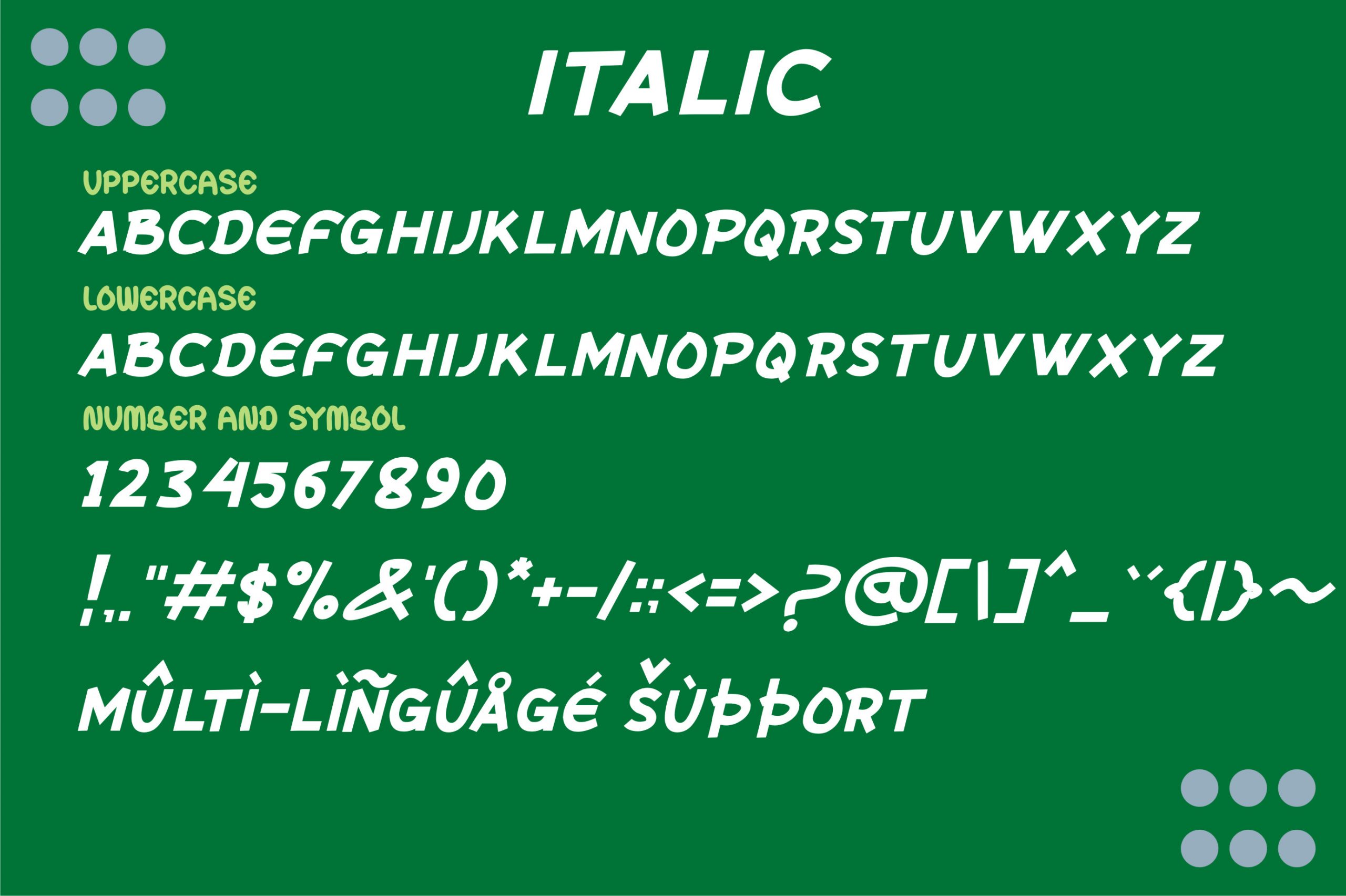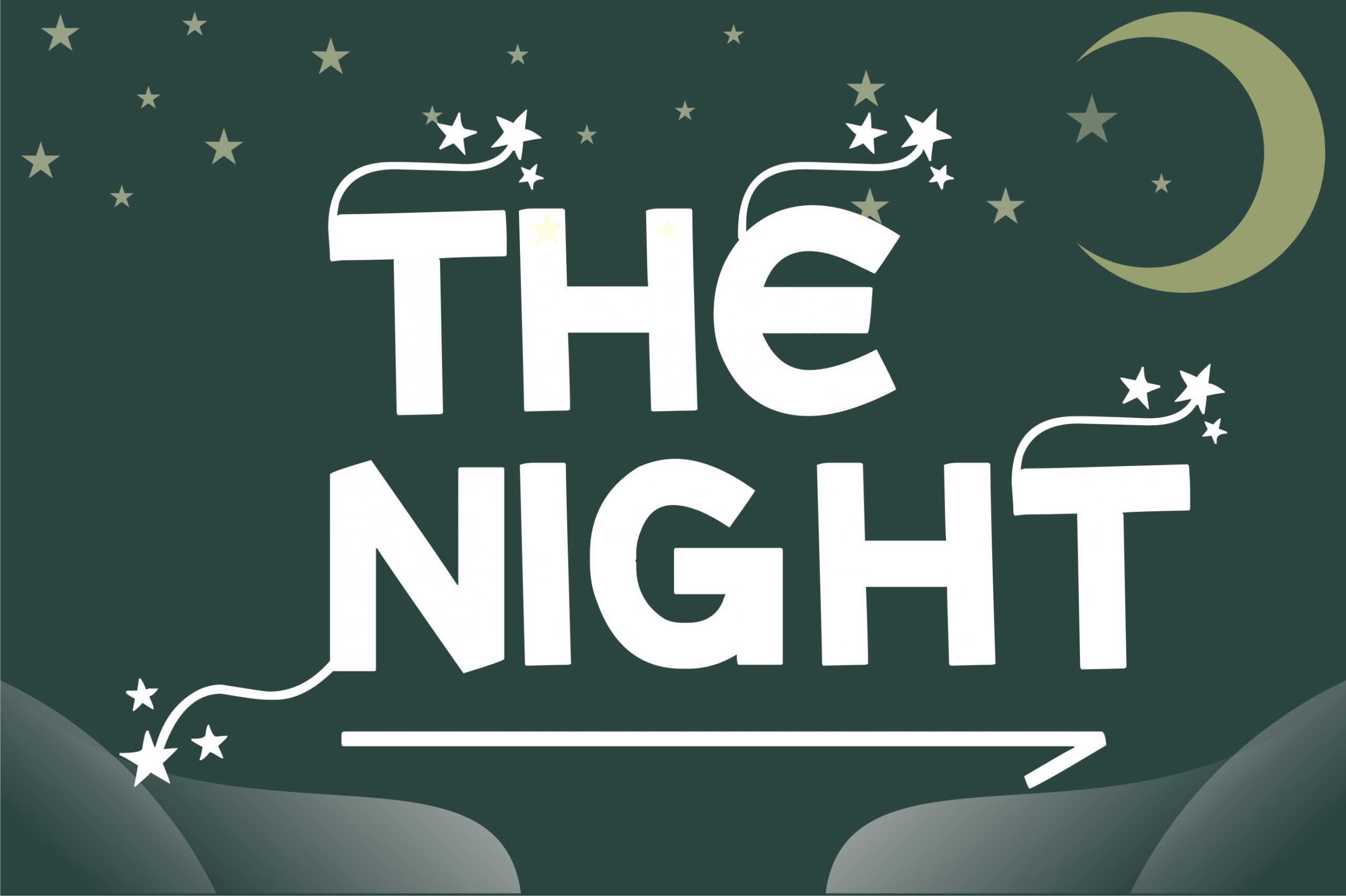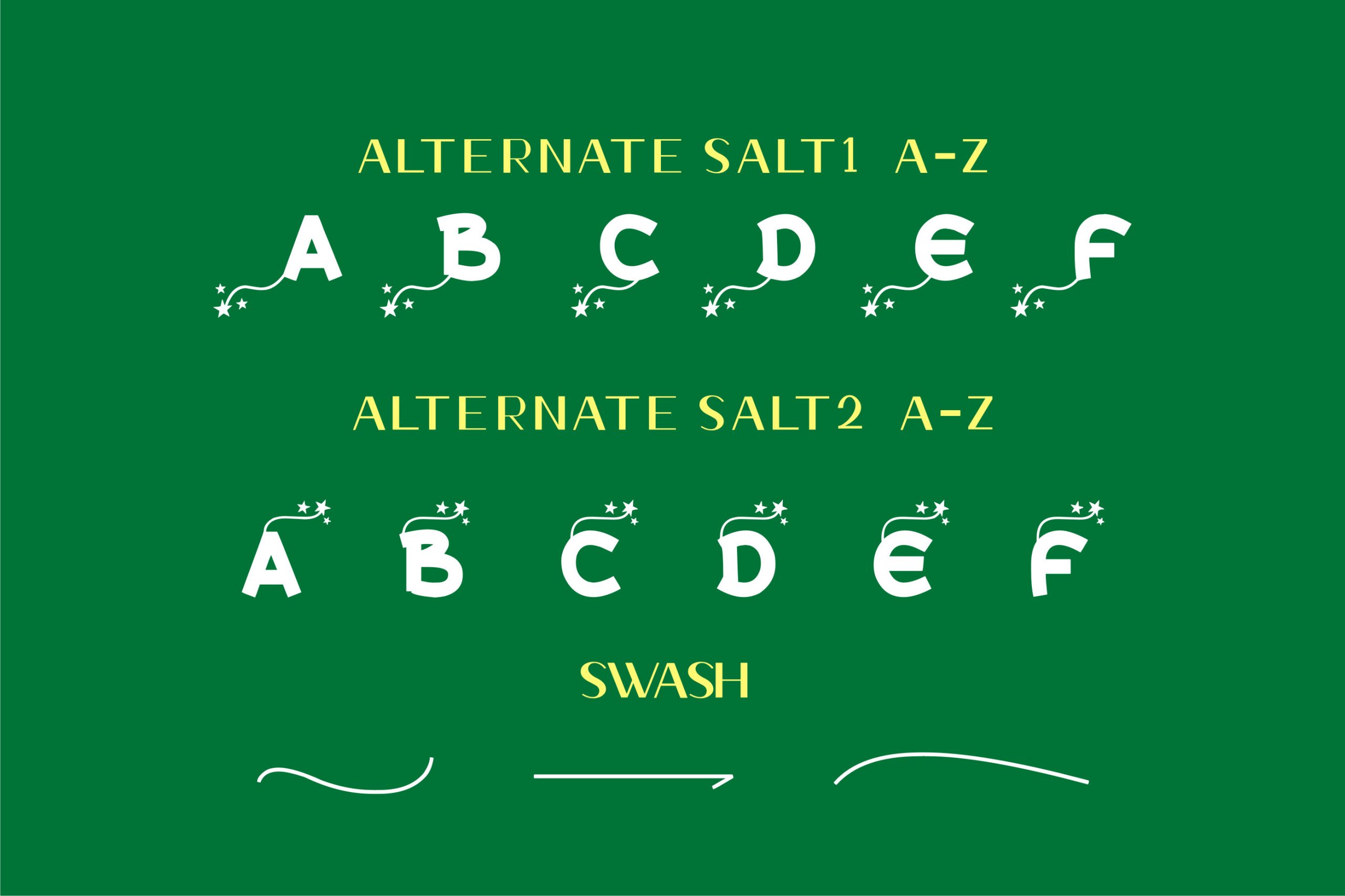
Noro Font
Noro Display Font
This is a fun, thick lettered and adaptable display font. This font is PUA encoded which means you can access all of the glyphs and swashes with ease! Noro is perfect for children themed designs, especially when combined with bright colors.